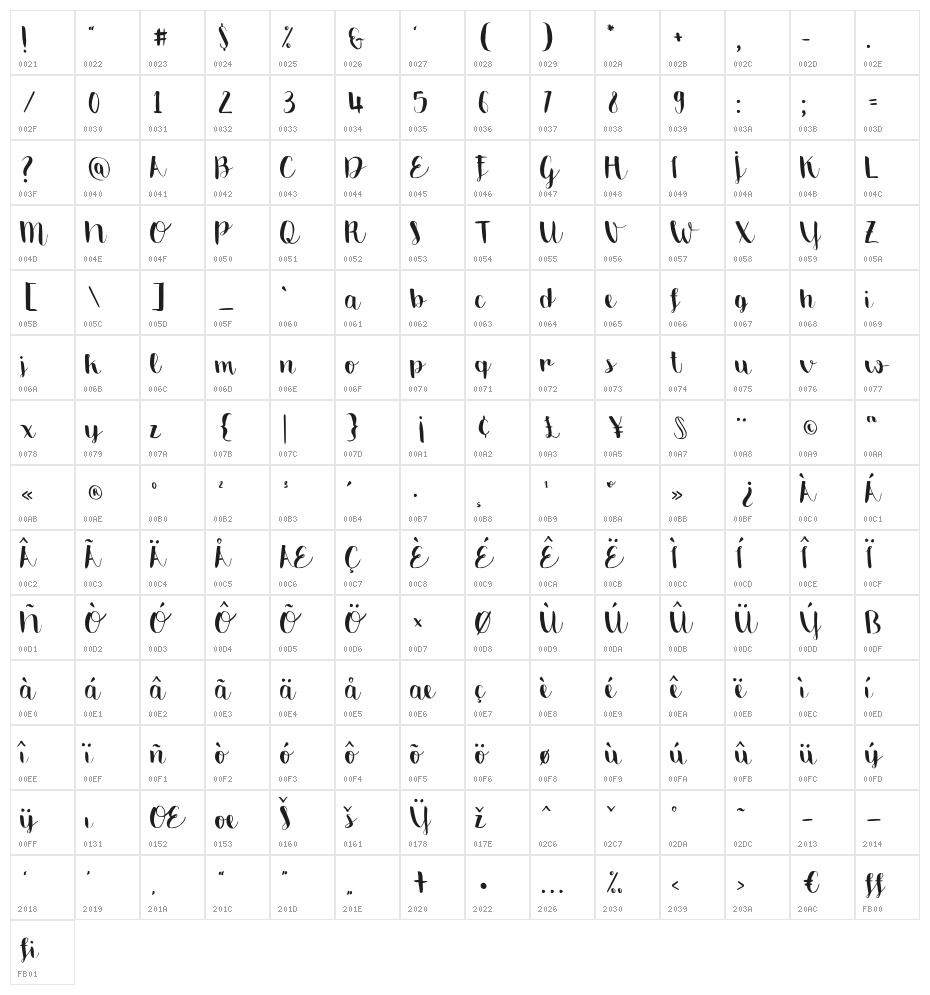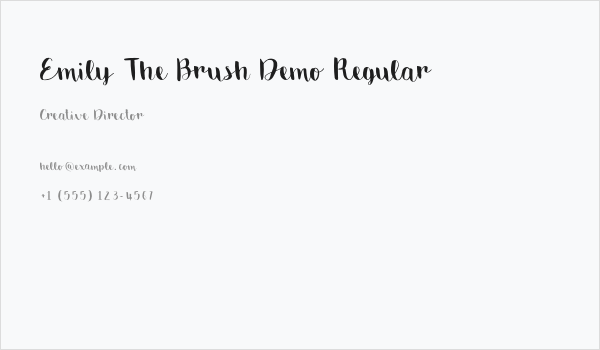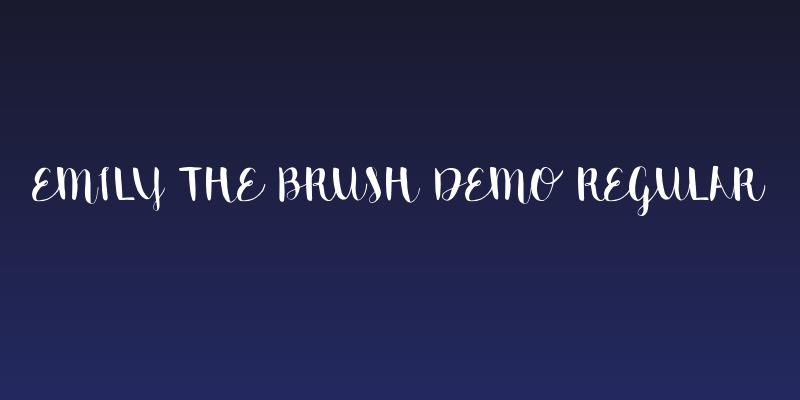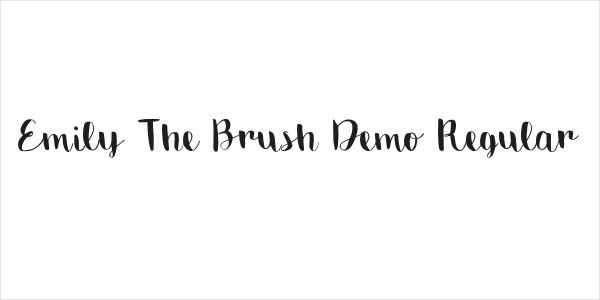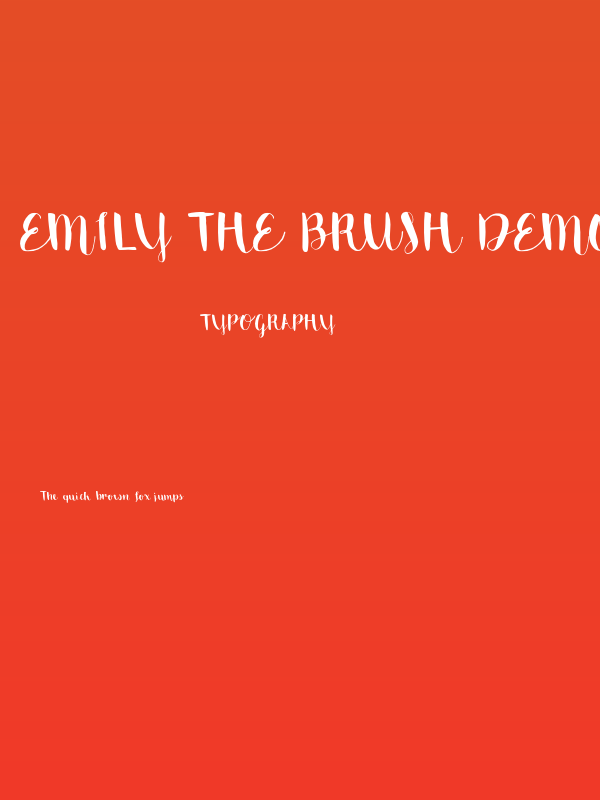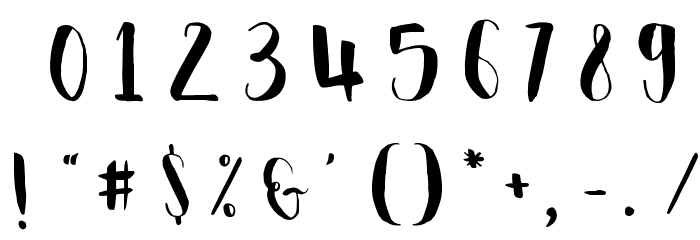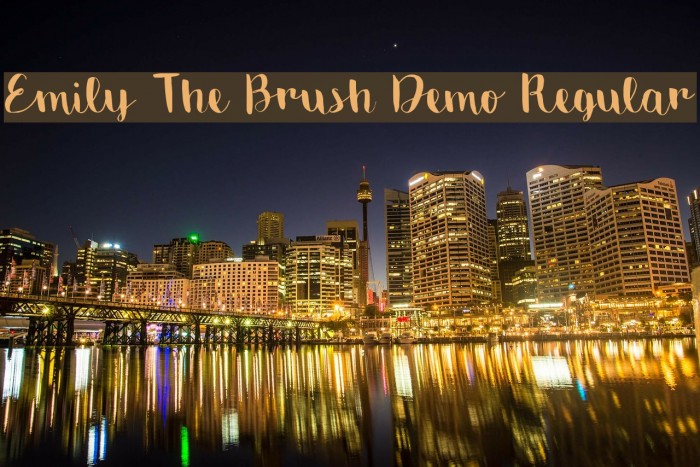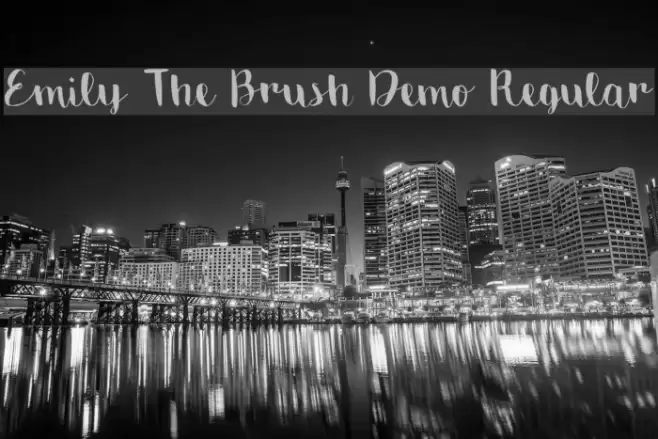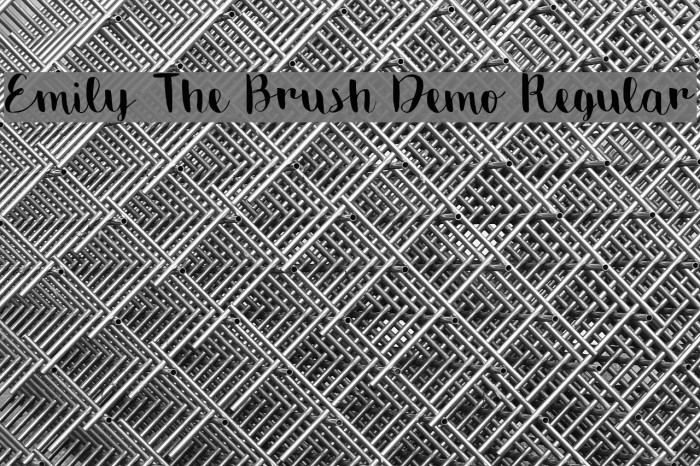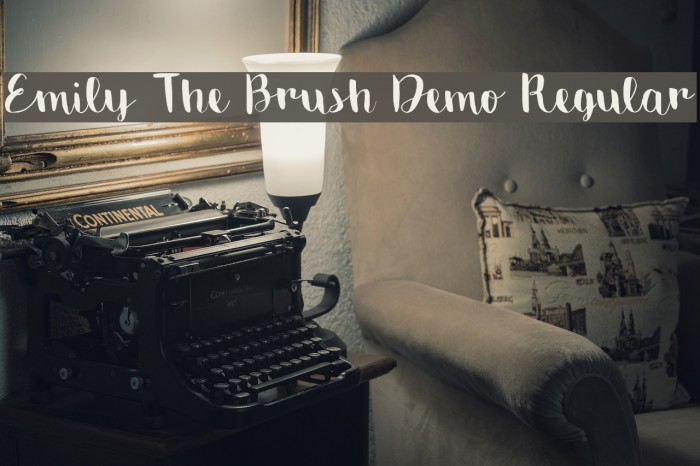
Emily The Brush Demo Regular Font
Emily The Brush Demo Regular Description
This font exudes a playful and artistic flair, characterized by its brush script style. The letters are fluid and dynamic, with varying stroke widths that create a sense of movement and energy. The uppercase letters are bold and expressive, while the lowercase letters maintain a consistent flow with elegant loops and curves. The numerals are equally stylized, adding to the overall cohesive look. Special characters are thoughtfully designed to match the whimsical nature of the font. This typeface is perfect for projects that require a personal touch, such as invitations, greeting cards, or artistic branding.
| Use Case | Logos, Headlines, Artistic projects |
| Proposed Projects | Ideal for invitations, greeting cards, artistic branding, and creative projects. |